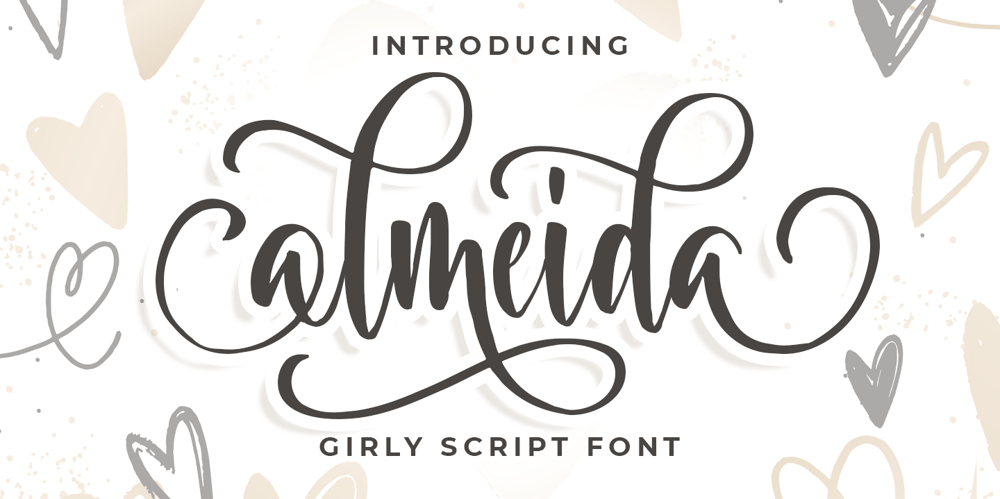
Almeida Script Font Family was designed by Bangkit Tri Setiadi and published by Blankids. Almeida Script contains 1 styles and family package options. Introducing of our new product the name is Almeida Girly Script Font. Almeida inspired by modern calligraphy style this font is a fun theme very good for display, tshirt design, craft, quote sign, logotype and etcFEATURES : Uppercase Lowercase Number Punctuation Multilingual PUA Encode Opentype